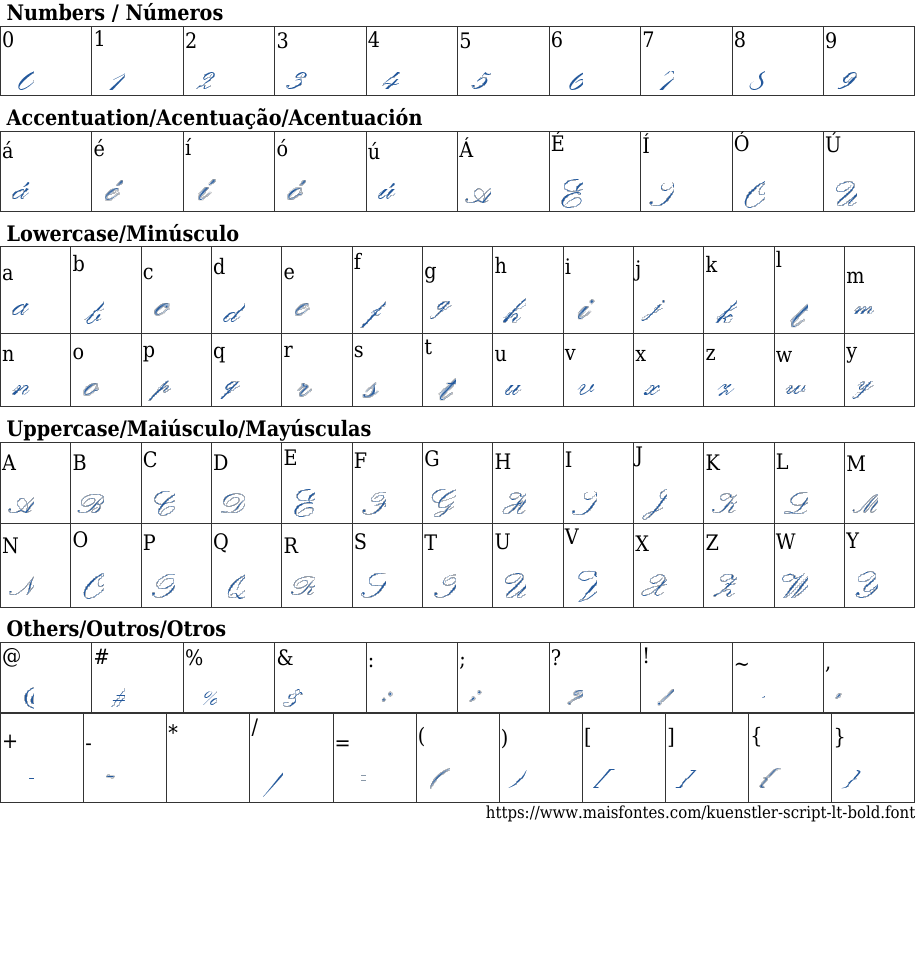
Kuenstler Script Bold Font Free Download View sample text, character map, user rating and review for kunstler script regular. The kuenstler script bold font has a script typography and is great for elegant invitation art. View sample text, character map, user rating and review for kunstler script regular. Installable on pc, mac, linux, ios, and android platforms. Download kunstler script regular for free. The font is only for commercial purposes only and you must be. Download 186,286 free fonts at ufonts.com. Free fonts by category, type, daily updates. Discover the free kuenstler script lt std 2 bold font at free font download ! Make the art more fun because. Download kuenstler script bold font at fontsmarket.com, the largest collection of amazing freely available fonts for windows and. Download kuenstler script lt boldopentype font. Download kunstler script font free! Fonts are in ttf, otf format and with direct download link and.